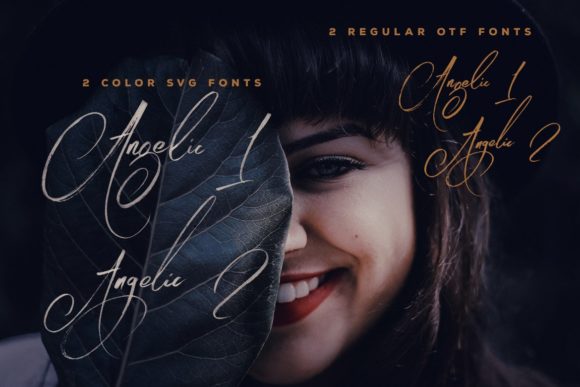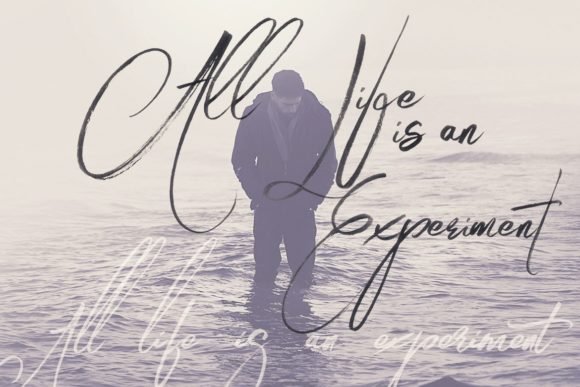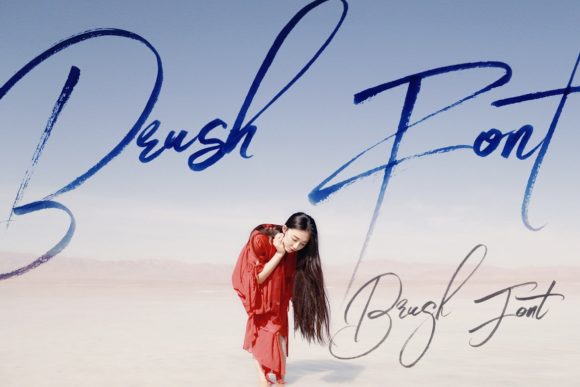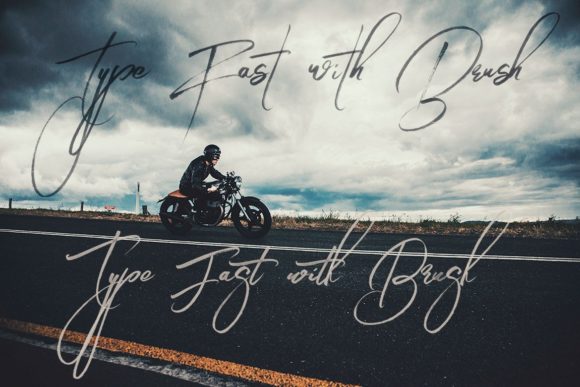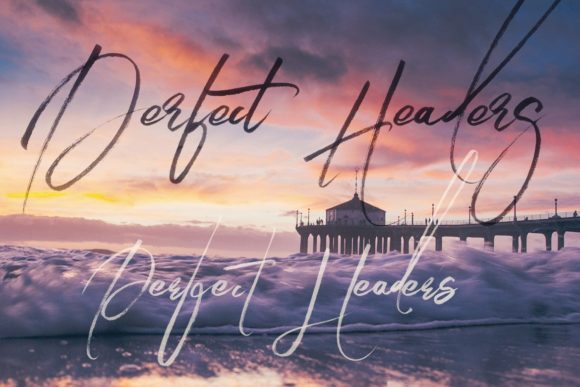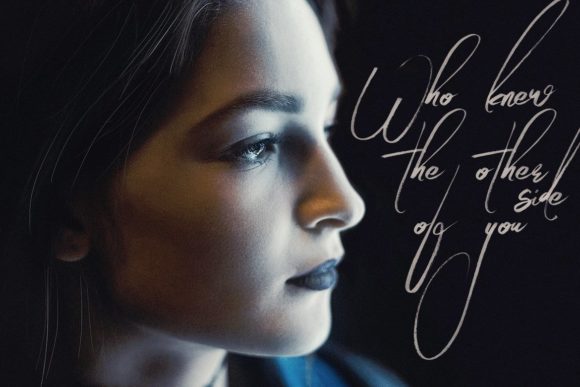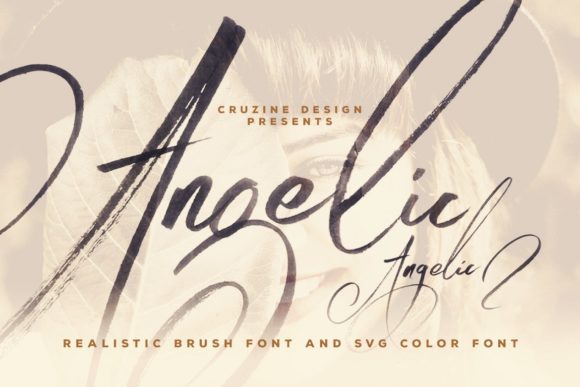
Discover the Heavenly Charm of Angelic Font: A Fun Brush Font with a Cool Twist
Are you tired of using the same old fonts for your designs? Look no further! Introducing Angelic, a fun brush font with a unique charm that’s sure to inspire your creativity. In this article, we’ll dive into the world of Angelic Font, exploring its features, benefits, and uses, as well as provide tips and tricks for getting the most out of this heavenly font.
What is Angelic Font?
Angelic Font is a brush script font that’s designed to add a touch of whimsy and playfulness to your designs. With its bold, cursive strokes and quirky flair, Angelic is perfect for creating eye-catching headlines, titles, and quotes. The font’s unique charm lies in its irregularities and imperfections, giving it a hand-crafted feel that’s both charming and authentic.
Features of Angelic Font
So, what makes Angelic Font so special? Here are just a few of its standout features:
- Unique Brush Strokes: Angelic Font features bold, expressive brush strokes that give it a dynamic and energetic feel.
- Cool Twist: The font’s irregularities and imperfections add a cool, laid-back vibe to your designs.
- Hand-Crafted Feel: Angelic Font has a distinctly hand-crafted feel, making it perfect for designs that require a personal touch.
- Highly Versatile: Whether you’re designing a logo, poster, or social media graphic, Angelic Font is versatile enough to fit any style or theme.
Benefits of Using Angelic Font
So, why should you choose Angelic Font for your next design project? Here are just a few benefits:
- Adds Personality to Your Designs: Angelic Font’s unique charm and character help to add personality and flair to your designs.
- Stand Out from the Crowd: With its bold, eye-catching strokes, Angelic Font is sure to make your designs stand out from the crowd.
- Easy to Use: Despite its complex, hand-crafted feel, Angelic Font is surprisingly easy to use and pairs well with a variety of other fonts and design elements.
Uses for Angelic Font
Angelic Font is incredibly versatile, making it suitable for a wide range of design applications. Here are just a few ideas to get you started:
- Logos and Branding: Use Angelic Font to create a unique and memorable logo that reflects your brand’s personality.
- Posters and Flyers: Add a touch of whimsy and playfulness to your posters and flyers with Angelic Font’s bold, cursive strokes.
- Social Media Graphics: Use Angelic Font to create eye-catching social media graphics that are sure to grab attention.
- Invitations and Stationery: Add a touch of elegance and sophistication to your invitations and stationery with Angelic Font’s hand-crafted feel.
Tips and Tricks for Using Angelic Font
Here are a few tips and tricks to help you get the most out of Angelic Font:
- Pair with Other Fonts: Angelic Font pairs well with a variety of other fonts, so don’t be afraid to get creative and try out different combinations.
- Use it Sparingly: While Angelic Font is incredibly versatile, it’s best used sparingly to avoid overwhelming your design.
In conclusion, Angelic Font is a fun brush font with a cool twist that’s sure to inspire your creativity. With its unique charm, bold strokes, and hand-crafted feel, Angelic Font is perfect for designers and crafters looking to add a touch of personality to their designs. So why not give it a try and see the heavenly charm of Angelic Font for yourself?